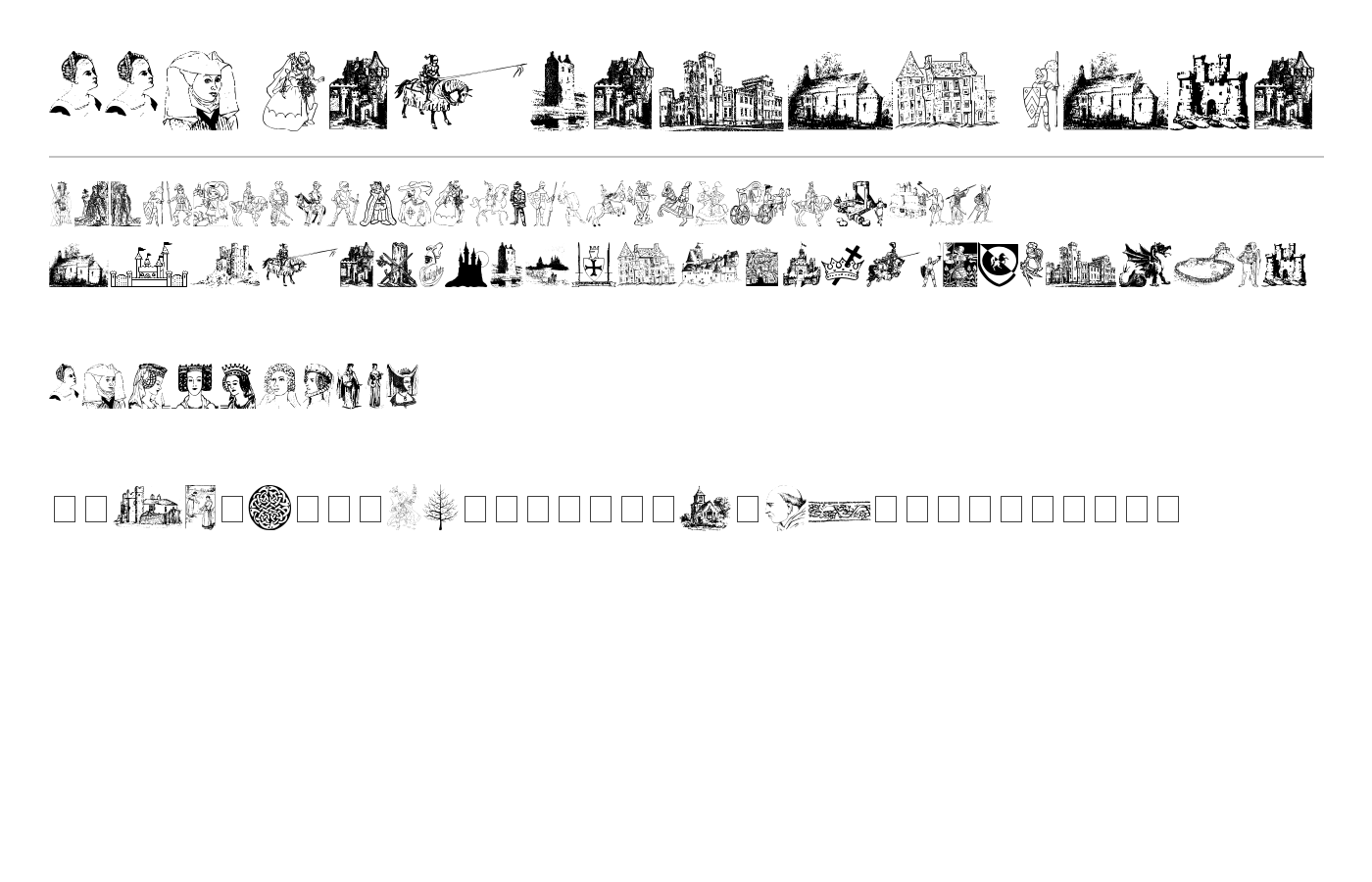
001 Medieval Daze is a decorative symbol font capturing intricate medieval imagery with finely detailed illustrations of castles, knights, queens, and historic scenes. Its elaborate and vintage style brings a historic, storytelling charm perfect for projects seeking an authentic medieval or fantasy atmosphere. This font works best for themed invitations, posters, or branding that demands a historic and artistic touch rather than traditional text use.
001 Medieval Daze Font
About 001 Medieval Daze Font